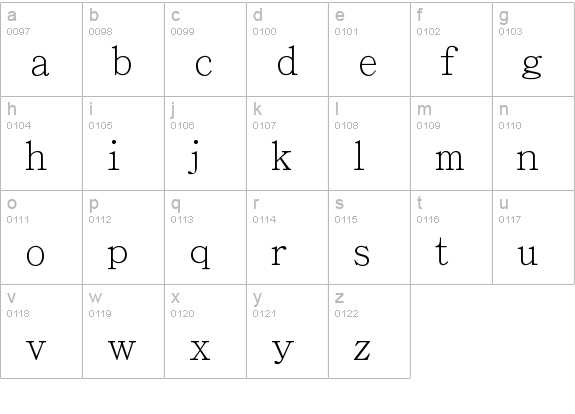
You can use this font for personal purpose. In foreign look > chinese, jpn. A sans serif with the futuristic retro, art deco feel of mid 20th century science fiction, particularly the early flash gordon serials.
Df Ming Is A Traditional Chinese Font.
Ming font is a sans serif with the futuristic retro, art deco feel of mid 20th century science fiction, particularly the early flash gordon serials. Download free ming fonts for windows and mac. A typeface with 1 style, available from adobe fonts for sync and web use.
Ming font by and large looks acquainted. You can find more futuristic fonts. Explore adobe ming available at adobe fonts.
You Can Use It For Card Designing And For Any Graphic Designs.
You Can Also Use Chinese Words In The Design.
This font also belongs to the futuristic font category. Ming font is the fancy display font typeface which you can use chinese, korean, and japanese languages. Contact me for commercial use at metanorocker14@hotmail.com.